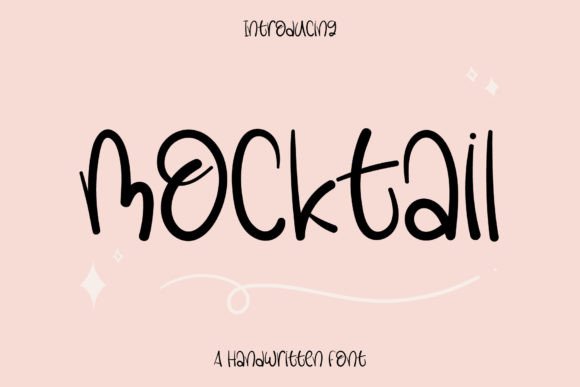
Dare to taste the sweet and refreshing exhilaration of Mocktail Font, a tantalizing script family that will quench your thirst for design delight!
Imagine a font that dances and twirls across your screens, captivating your audience with its charmingly casual style. Mocktail's unassuming grace effortlessly blends readability and versatility, making it the perfect choice for both digital and print adventures.
Whether you seek to weave enchanting PDF books that transport readers to realms unknown or craft eye-catching headlines that demand attention, Mocktail is your secret weapon. Its playful, yet sophisticated strokes will add a touch of whimsical wonder to any project.